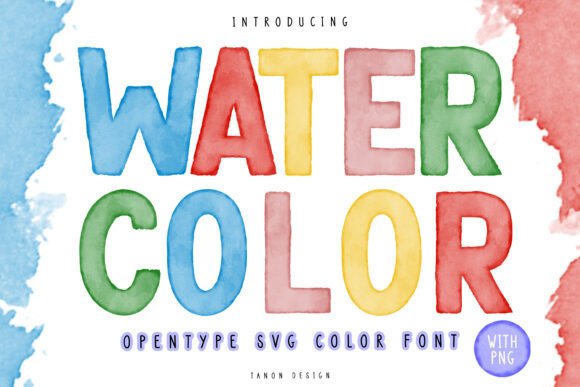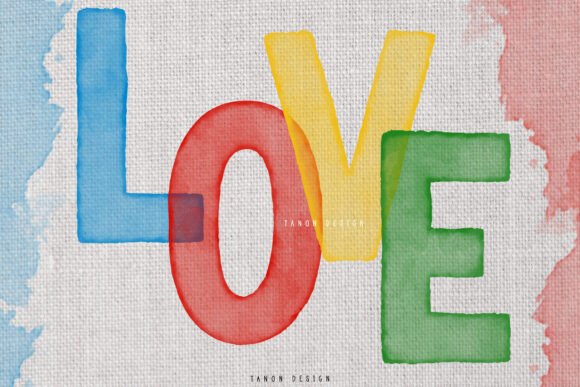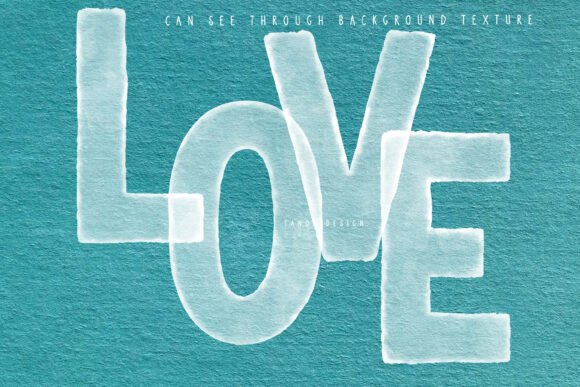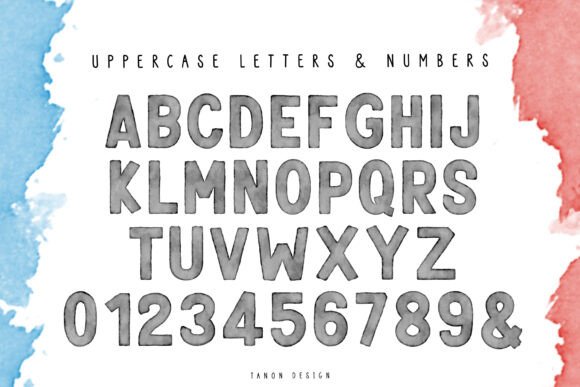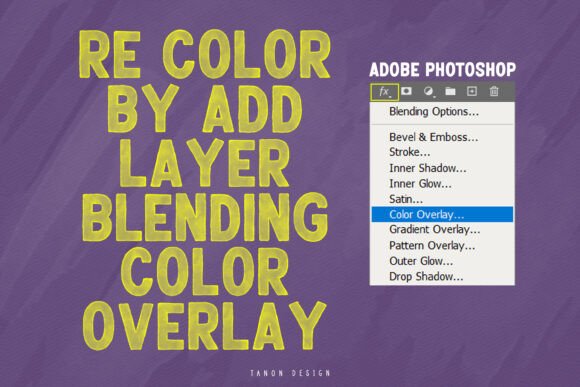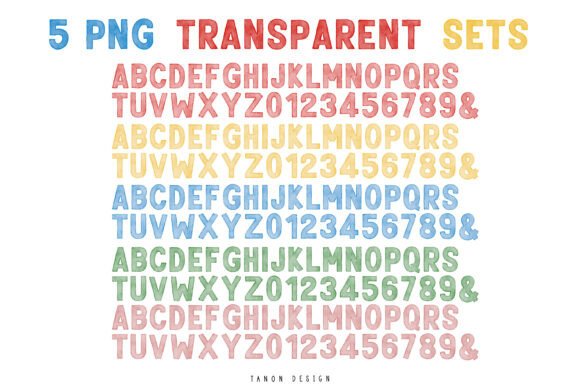
Watercolor Font
Watercolor font is a realistic watercolor texture brush stroke Opentype SVG Color font.
With realistic watercolor texture, you can add this font to any texture so that it will see through and match with the background texture.